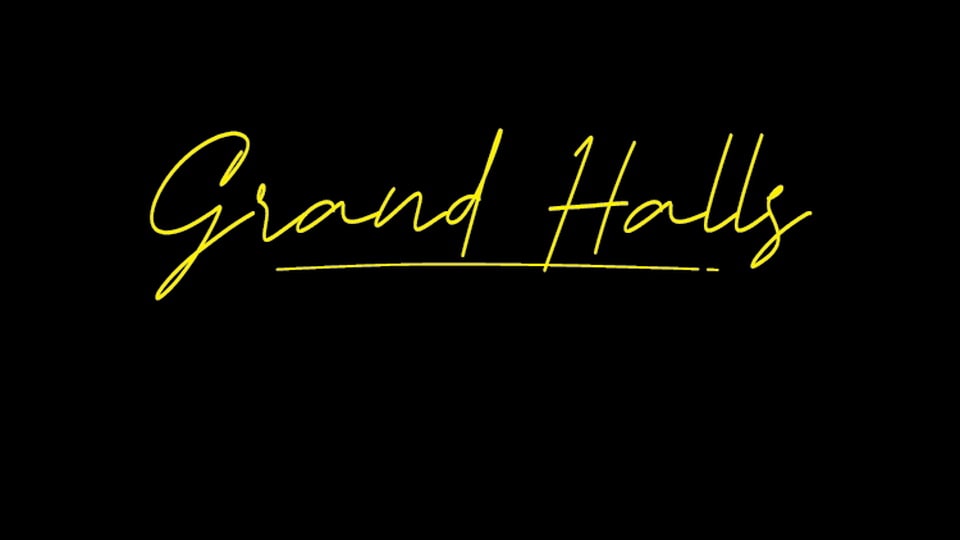
Download Grand Halls font, a handwritten typeface that captures the effortless elegance of a handwritten signature. Grand Halls font is all about creating designs that exude a sense of sophistication and personal touch.
Designer: Linafis Studio